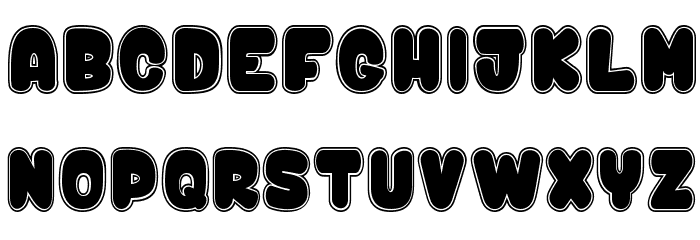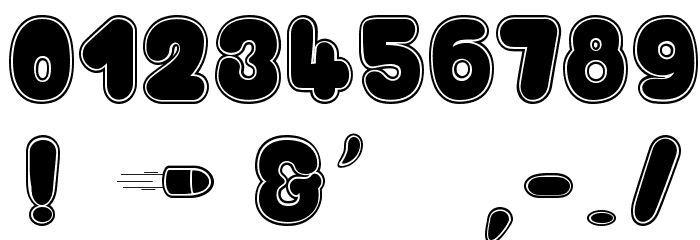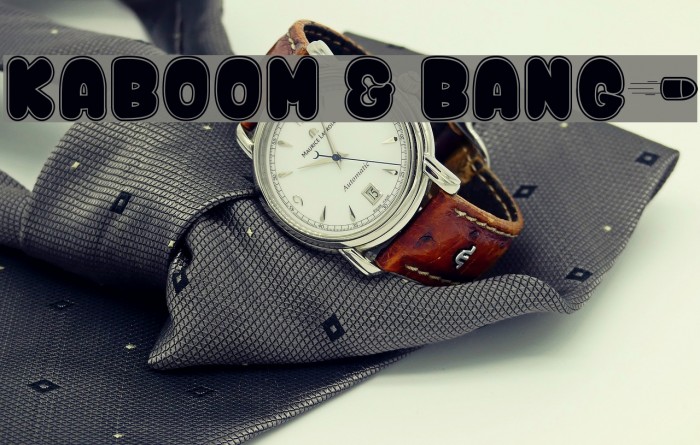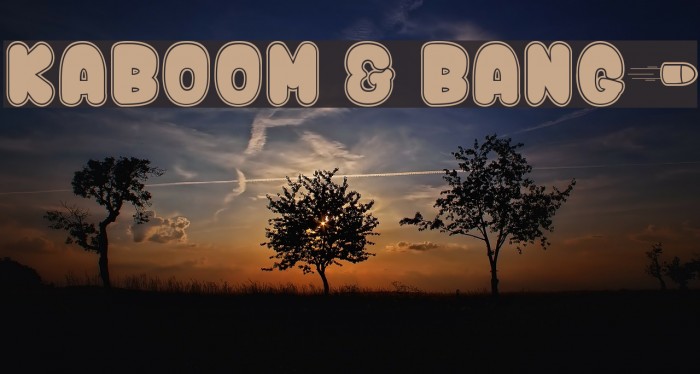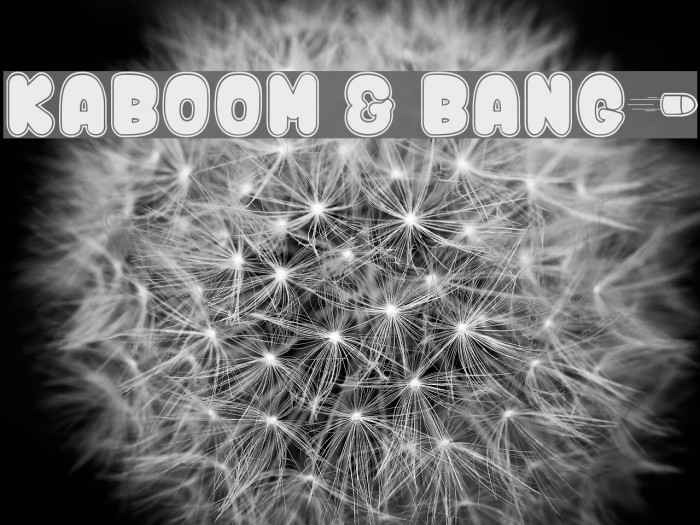
Kaboom & Bang$ Font
This font features bold, rounded characters with a playful and dynamic style. Each letter is encased in a thick outline, giving it a three-dimensional effect that makes it stand out. The characters are uniformly wide, contributing to a cohesive and balanced appearance. The font includes both uppercase and lowercase letters, numbers, and a selection of special characters. Its boldness and unique style make it ideal for attention-grabbing designs. The overall look is modern and fun, suitable for projects that require a lively and energetic vibe.
A bold, rounded font with a playful, three-dimensional style.
- Proposed Projects: Ideal for comic books, children's books, posters, and playful branding.
- Overall Style: Playful, Modern